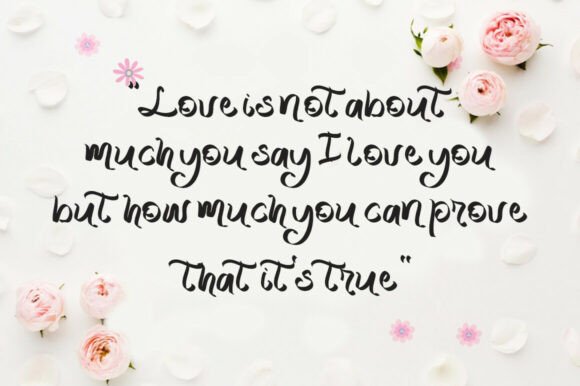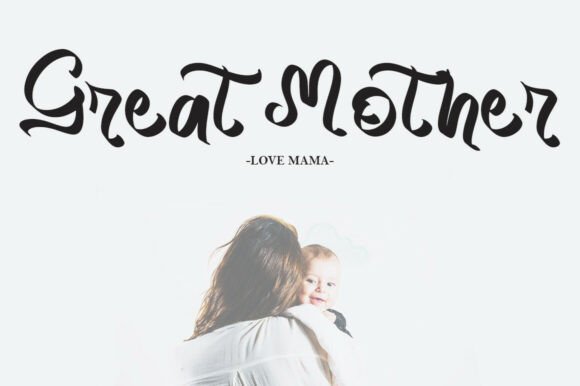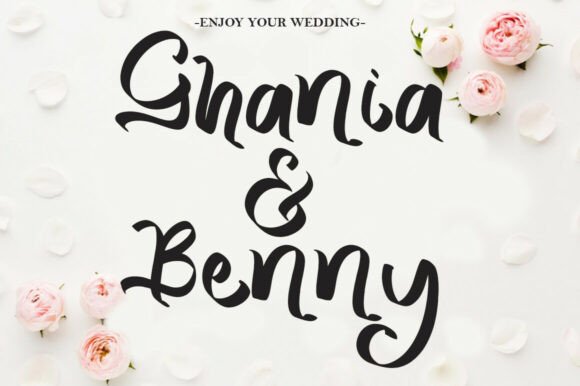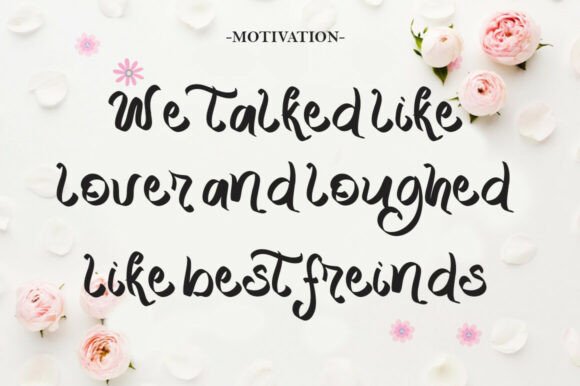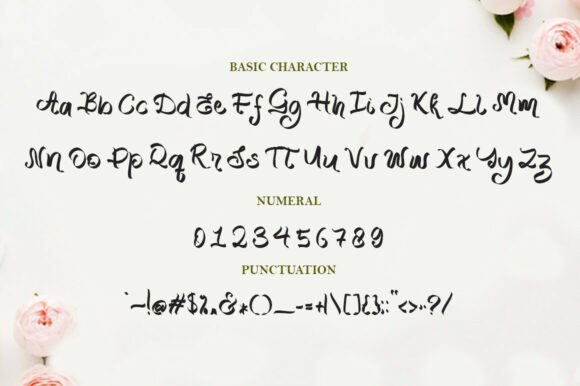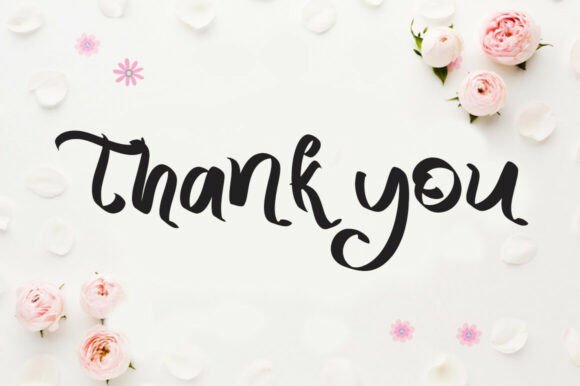
Gahista Disfaryke Font: Elevate Your Designs with Elegance and Softness
Are you a designer or crafter looking for a font that exudes softness and elegance? Look no further than the Gahista Disfaryke Font. This beautiful font is perfect for adding a touch of sophistication and femininity to any design project. In this article, we’ll explore the features and benefits of the Gahista Disfaryke Font and how it can elevate your designs to the highest level.
What is Gahista Disfaryke Font?
Gahista Disfaryke Font is a stunning script font that is designed to add a touch of elegance and softness to any design project. With its graceful strokes and feminine touch, this font is perfect for a wide range of applications, including branding, titles, wedding designs, invitations, signs, logos, labels, and more.
Key Features of Gahista Disfaryke Font
• Soft and Elegant Strokes: The Gahista Disfaryke Font features soft and elegant strokes that give it a unique and sophisticated look.
• Feminine Touch: This font has a distinctly feminine touch, making it perfect for designs that require a touch of elegance and refinement.
• Versatile: The Gahista Disfaryke Font is versatile and can be used for a wide range of design projects, from branding and titles to wedding designs and invitations.
• High-Quality: This font is designed to deliver high-quality results, with crisp and clear lettering that will make your designs stand out.
Benefits of Using Gahista Disfaryke Font
There are many benefits to using the Gahista Disfaryke Font in your design projects. Here are just a few:
• Adds Elegance and Sophistication: This font adds a touch of elegance and sophistication to any design project, making it perfect for high-end brands and luxury designs.
• Creates Emotional Connection: The soft and feminine strokes of the Gahista Disfaryke Font create an emotional connection with the viewer, making it perfect for designs that require a personal touch.
• Versatile and Flexible: This font is versatile and flexible, making it easy to use in a wide range of design projects and applications.
• Easy to Read: The Gahista Disfaryke Font is easy to read, even at small sizes, making it perfect for designs that require a lot of text.
Design Ideas Using Gahista Disfaryke Font
The Gahista Disfaryke Font is perfect for a wide range of design projects. Here are a few ideas to get you started:
• Wedding Designs: Use the Gahista Disfaryke Font to create beautiful wedding invitations, wedding stationery, and wedding decorations.
• Branding and Logos: This font is perfect for creating elegant and sophisticated brand identities, logos, and business cards.
• Signs and Posters: Use the Gahista Disfaryke Font to create eye-catching signs and posters that will grab attention.
• Labels and Packaging: This font is perfect for creating elegant and sophisticated labels and packaging for luxury products.
Tips for Using Gahista Disfaryke Font
Here are a few tips for using the Gahista Disfaryke Font in your design projects:
• Use it Sparingly: Use the Gahista Disfaryke Font sparingly to add emphasis and create visual interest.
• Pair it with Other Fonts: Pair the Gahista Disfaryke Font with other fonts to create a unique and interesting contrast.
• Experiment with Colors: Experiment with different colors and textures to add depth and interest to your designs.
• Pay Attention to Kerning: Pay attention to kerning and spacing to ensure that your text is easy to read and visually appealing.
Font Name Gahista Disfaryke Font
Author tertoecreative
The Gahista Disfaryke Font is a beautiful and elegant script font that is perfect for adding a touch of sophistication and femininity to any design project. With its soft and elegant strokes, versatile design, and high-quality results, this font is a must-have for designers and crafters. Whether you’re creating wedding designs, branding and logos, signs and posters, or labels and packaging, the Gahista Disfaryke Font is sure to elevate your designs to the highest level.